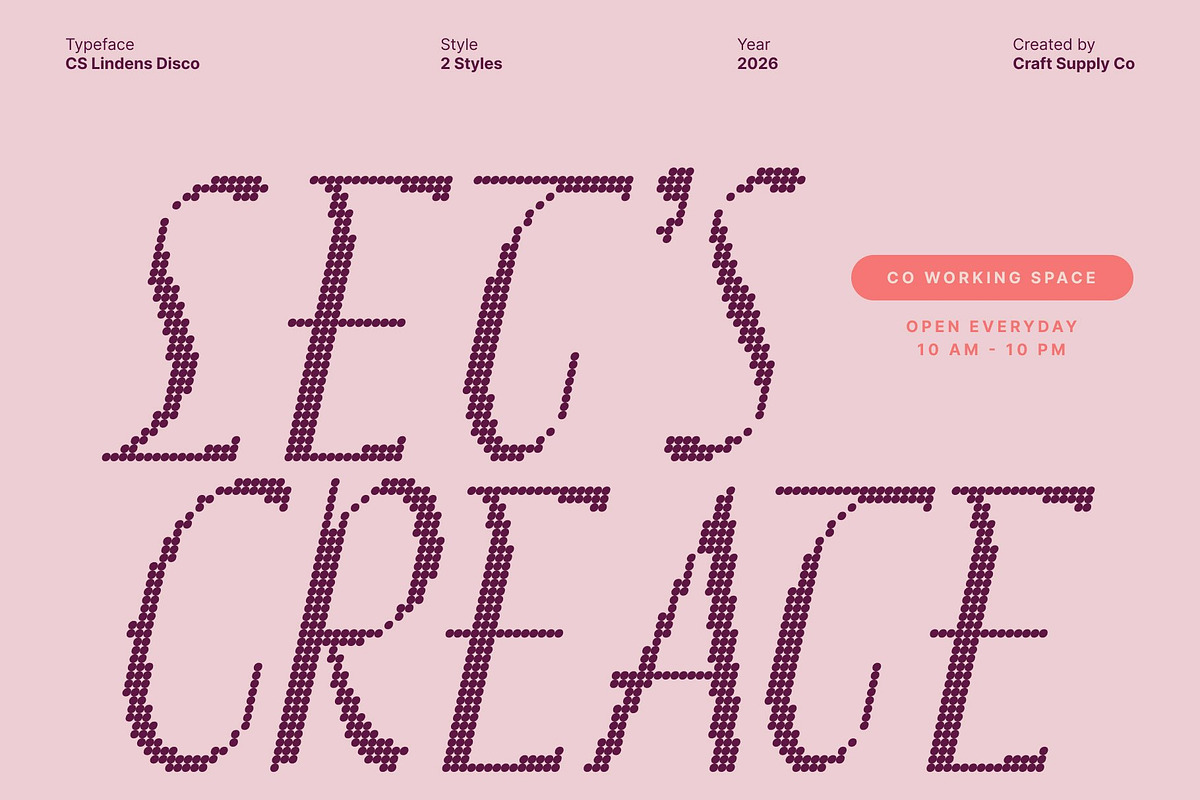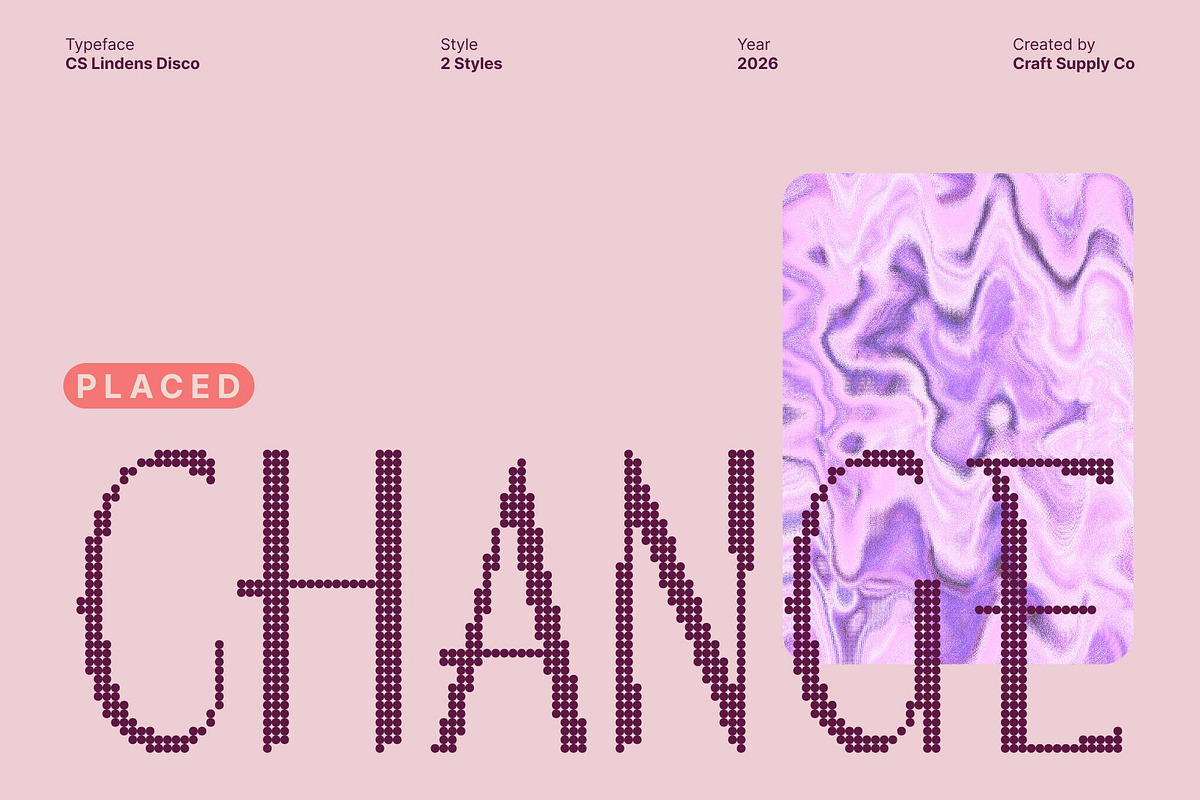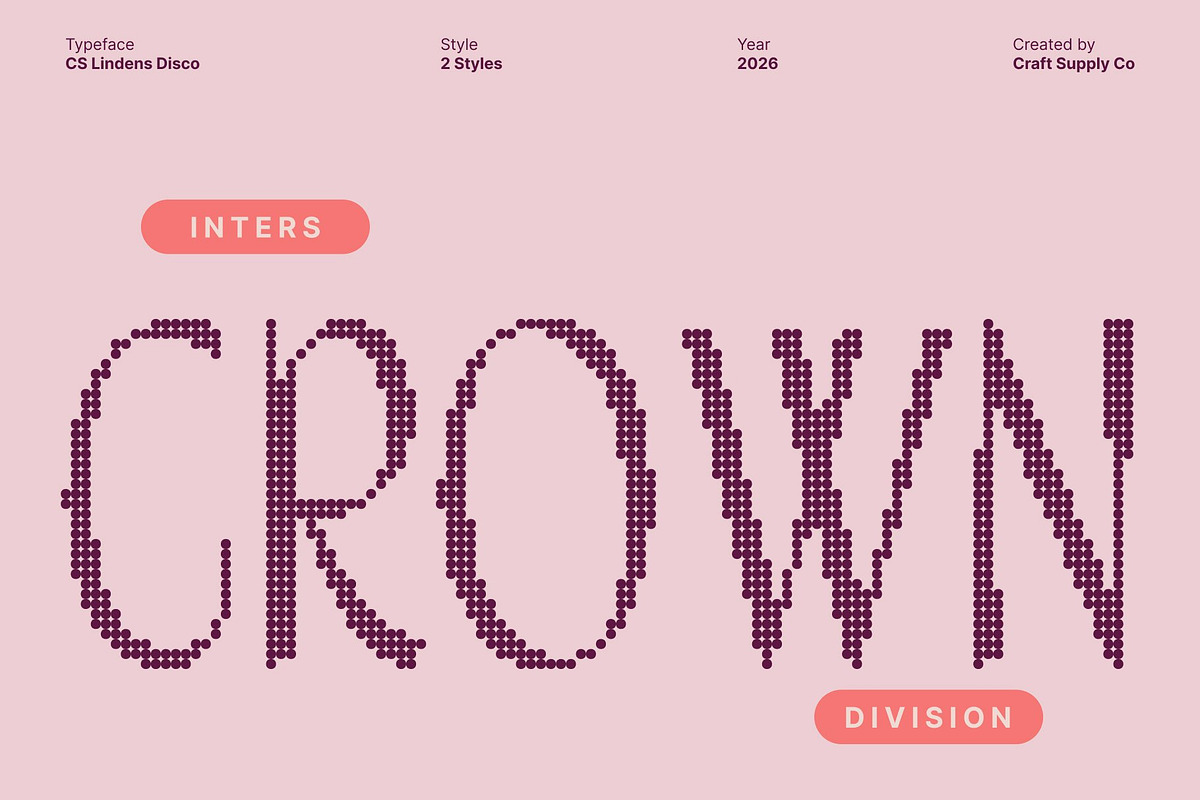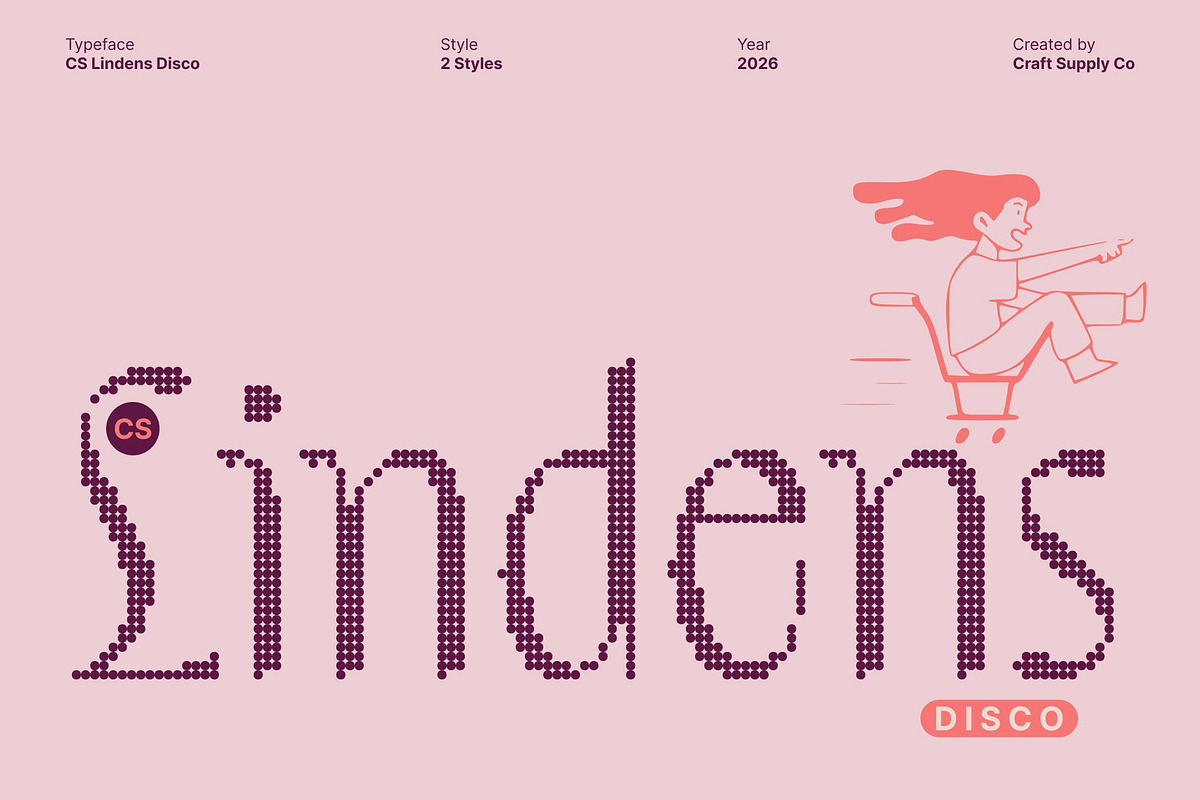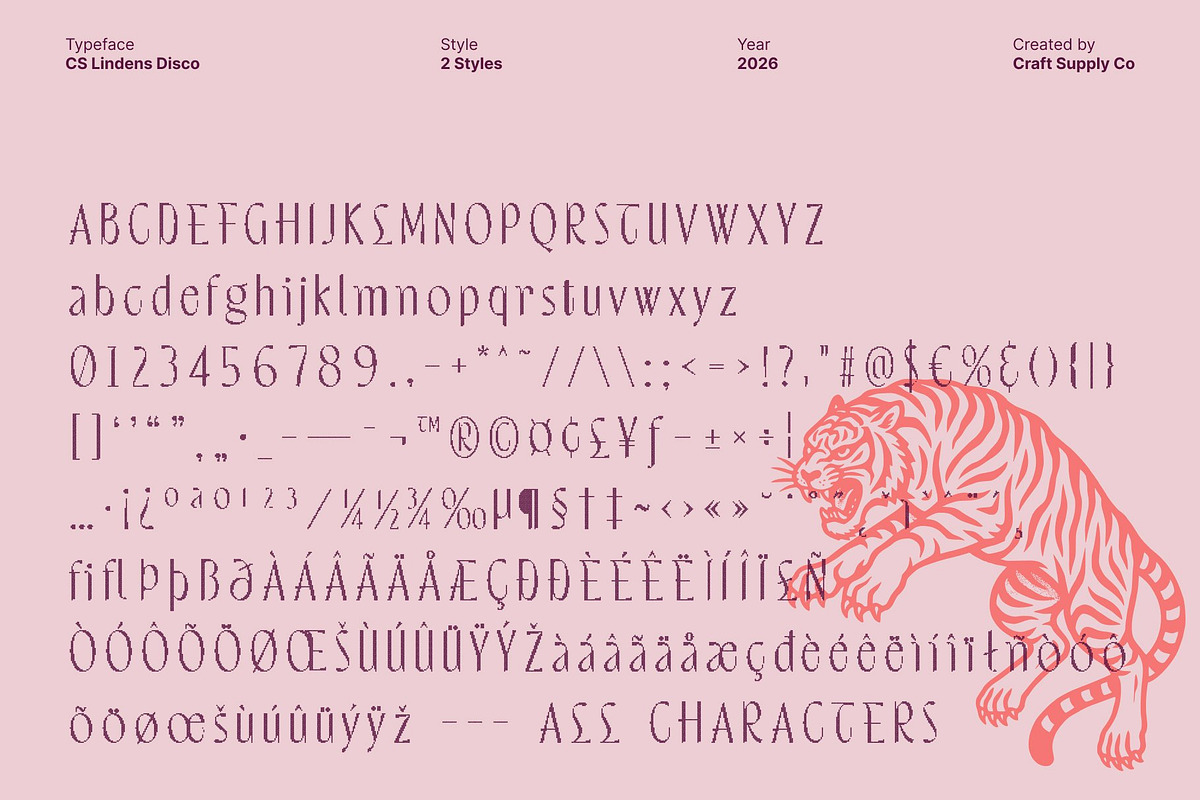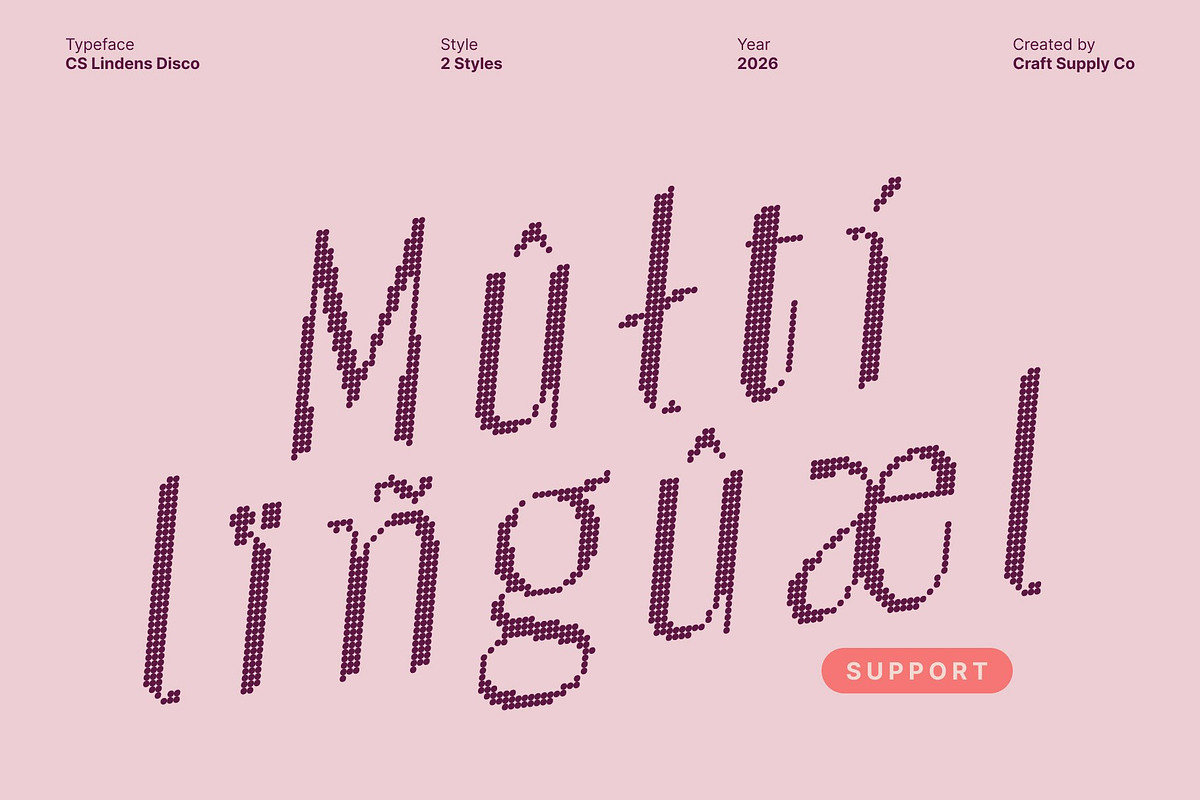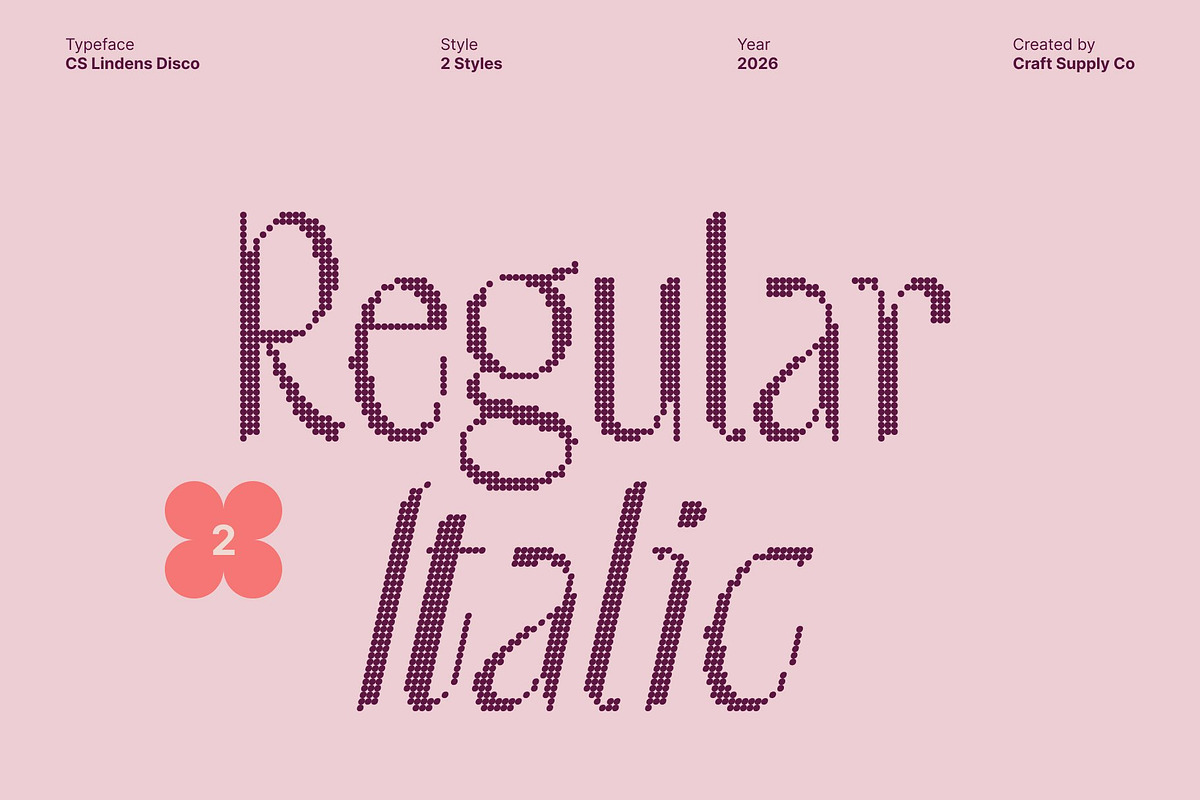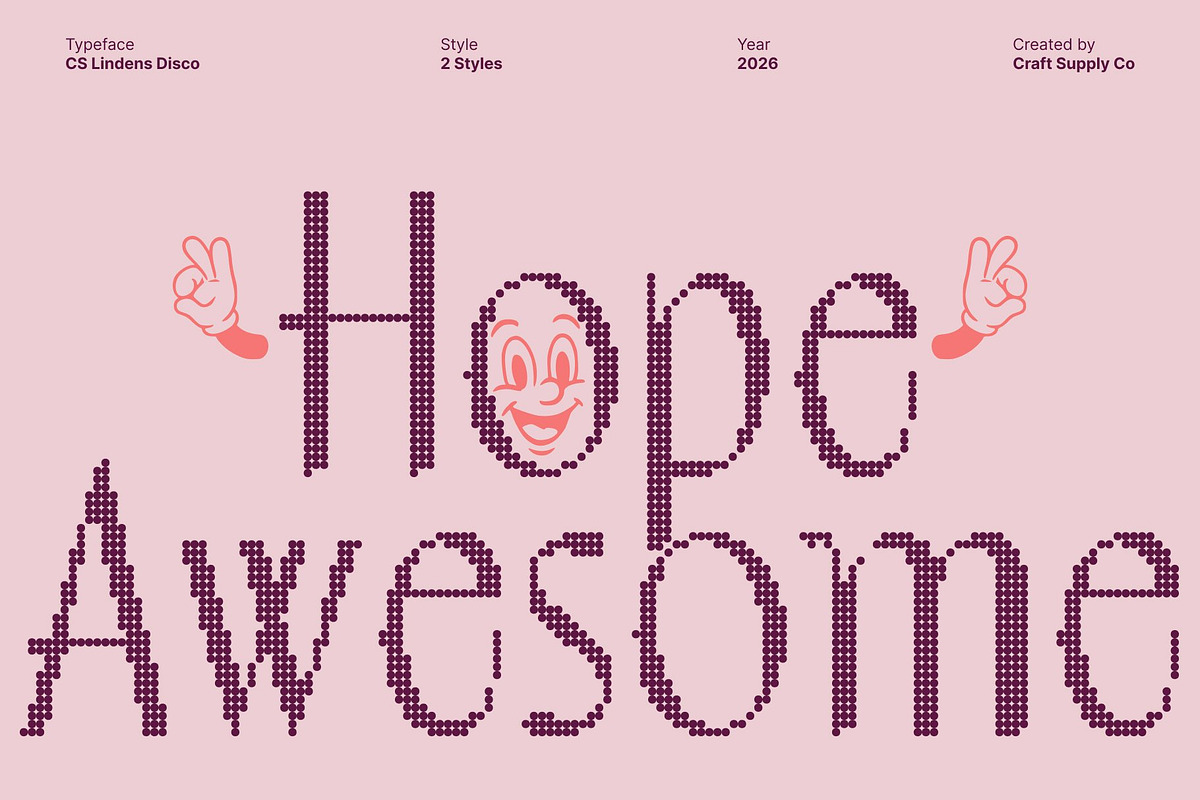
CS Lindens Disco
CS Lindens Disco – Aesthetic Minimalism with Modern Digital Glamour
Aesthetic Sans Serif with Clean, Luminous Style This is an aesthetic sans serif font that blends minimalist clarity with modern disco elegance. Built on clean lines and sleek construction, it reflects contemporary digital culture while adding a subtle glow inspired by neon lights and polished dance floors. The result is a typeface that feels calm, stylish, and effortlessly glamorous.
Minimalist Structure with Sleek, Radiant Beauty The letterforms are designed with a minimalist mindset focused on balance, spacing, and smooth geometry yet elevated with a luminous presence. Each character feels light, precise, and intentional, delivering excellent readability while evoking the refined shine of modern nightlife aesthetics.
Modern Digital Vibe with Festive Sophistication Rooted in digital and lifestyle trends, this font captures the mood of modern visuals enhanced by disco-inspired energy. Its understated elegance mirrors flashing lights, glossy surfaces, and curated online identities. It communicates luxury through simplicity, now infused with movement, rhythm, and visual excitement.
Perfect for Fashion, Social Media, and Lifestyle Branding This font is ideal for social media content, fashion branding, lifestyle identities, luxury visuals, and clean web layouts that want a modern festive edge. From digital campaigns to packaging and editorial design, it enhances every composition with contemporary beauty, subtle glamour, and confident digital flair.